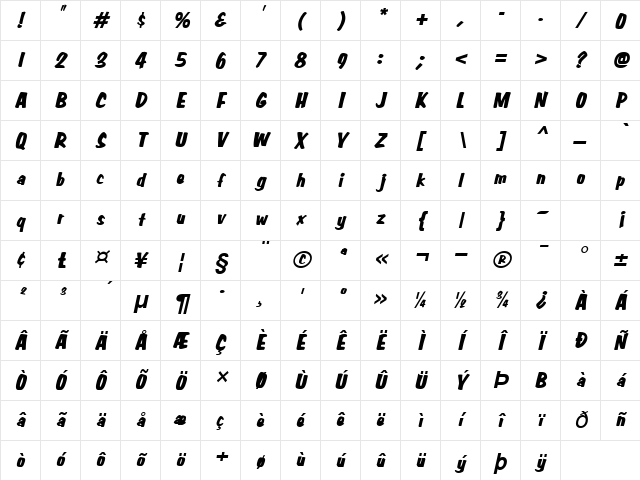
Big Nib Italic
Design Context for Big Nib
Big Nib is a composed and adaptable typeface that performs quietly and consistently across a wide range of design contexts. The slanted form adds forward momentum and visual energy.
Pro Tip: Use Big Nib for emphasis, pull quotes, and subheadings where its slanted energy can add rhythm to the layout.